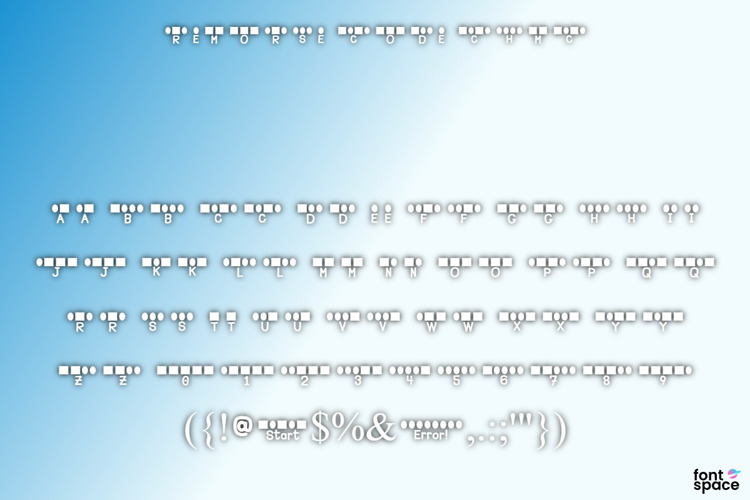
Remorse Code CHMC Font
Remorse Code is a Morse Code font by me. There are 2 flavors for this dingbat font, one is easy (the one with letters below, known simply as just "Remorse Code"), the other is difficult (the one without letters below, known as "Remorse Code Difficult"). It kind of reminds me of Radios in Motion by Ray Larabie.